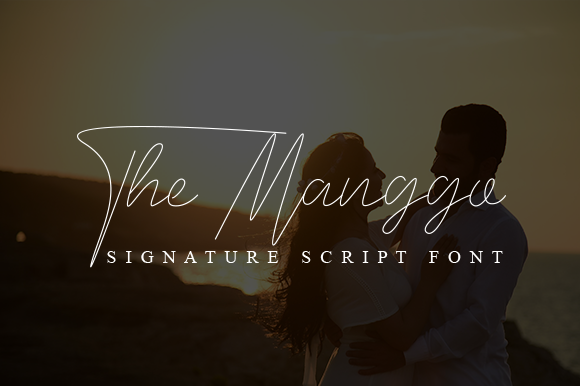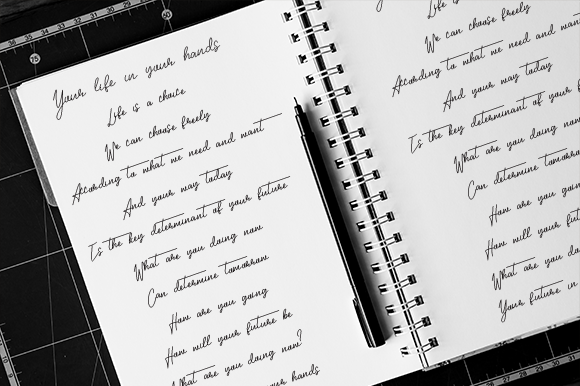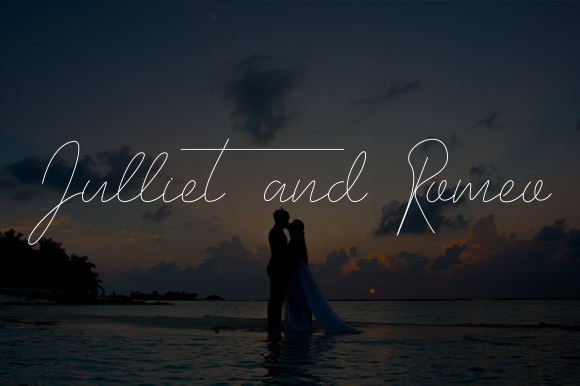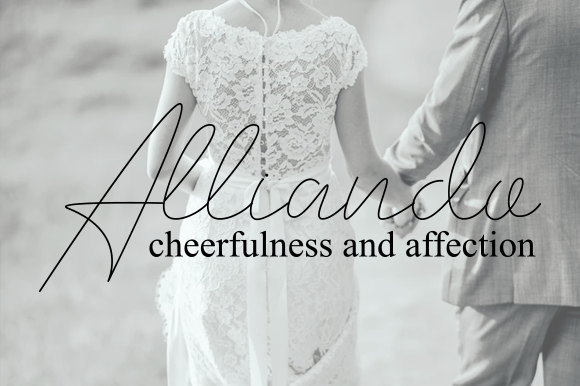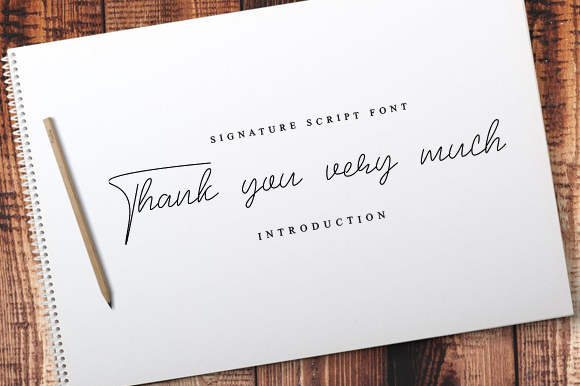
The Manggo Font
About The Manggo Font
The Manggo is a fancy, contemporary handwritten font. In addition to its well-balanced weight distribution, it delivers a sophisticated style which is further emphasized by the carefully adjusted alternates and ligatures!